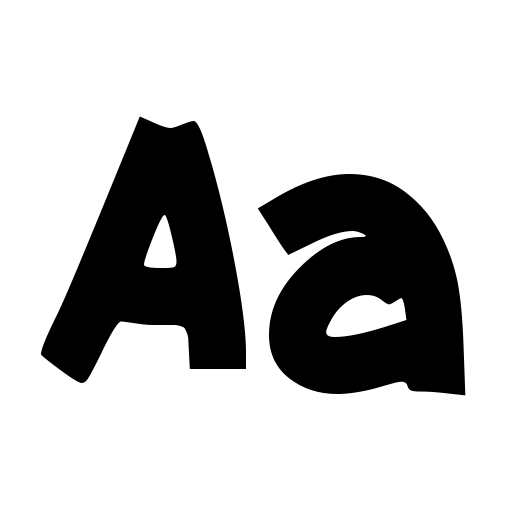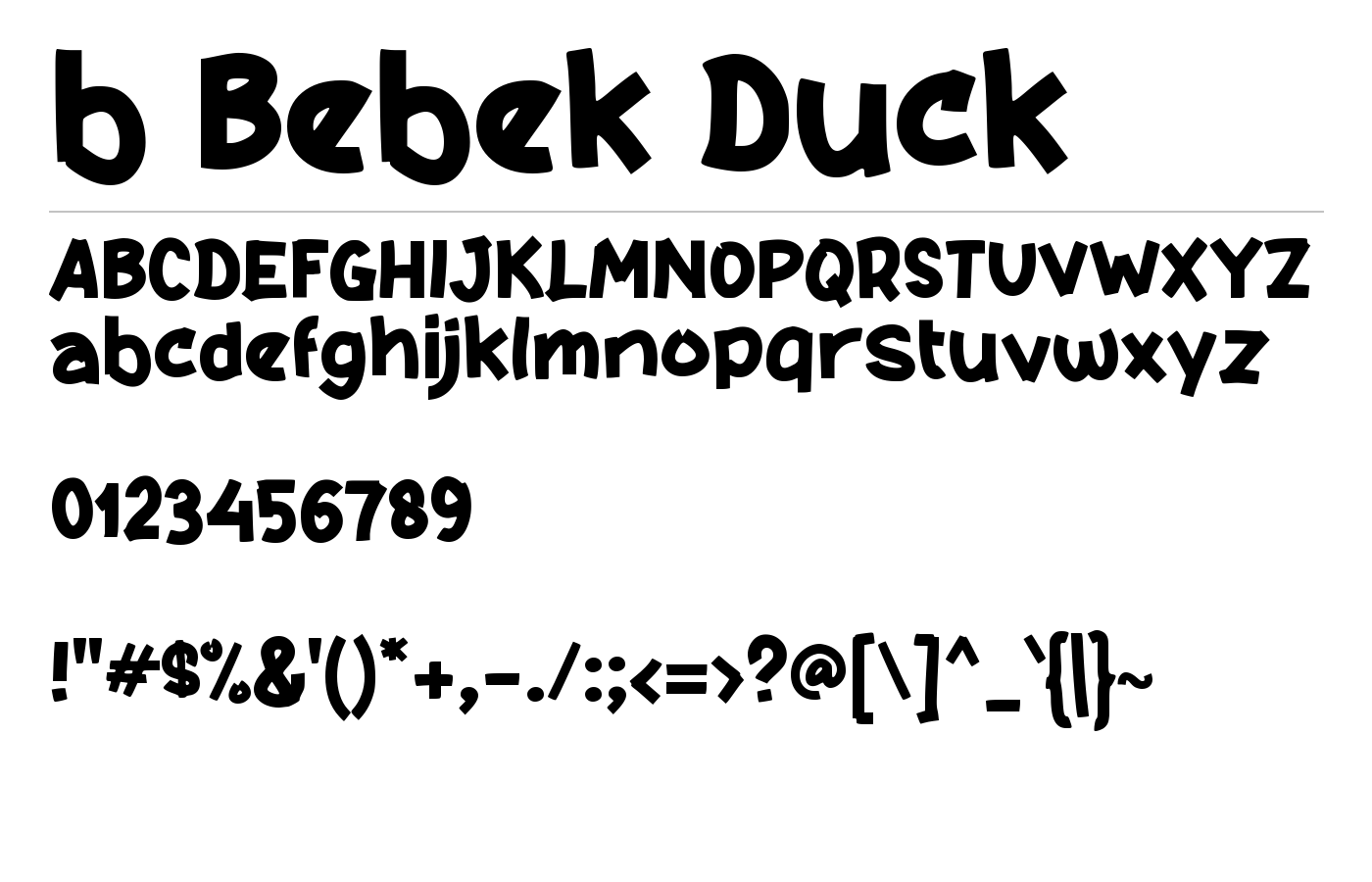
B Bebek Duck is a bold, playful sans serif font with a hand-drawn, slightly irregular style that gives it a fun and casual personality. Its rounded, chunky letterforms and high x-height make it highly readable while adding a whimsical, friendly feel that's perfect for children's content, informal branding, or eye-catching headlines. This font works best where a lively, approachable tone is needed to engage the audience with charm and cheerfulness.
b Bebek Duck Font
About b Bebek Duck Font